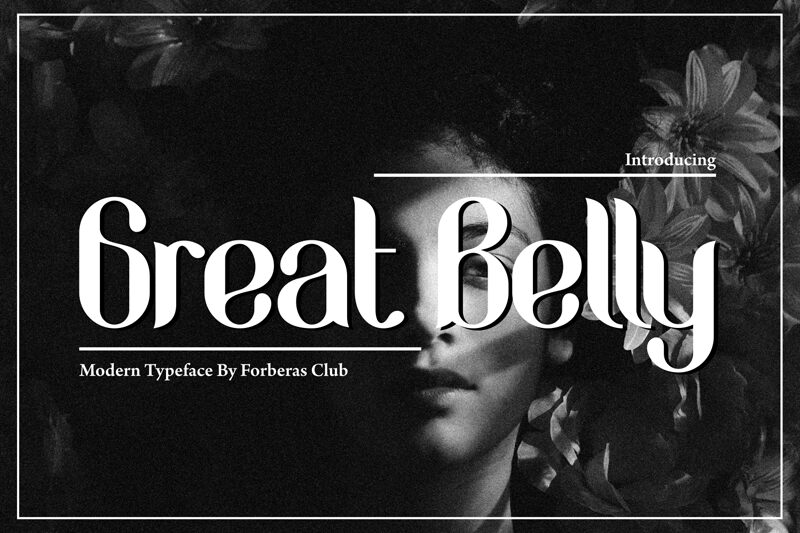
Great Belly, the modern display font designed by Forberas Club, is perfect for projects that require a sleek and sophisticated touch. With its condensed width, this semi-bold font adds a sense of urgency and emphasis to headlines, titles, and logos. This versatile typeface is suitable for various creative projects such as magazine covers, branding materials, website headers, and packaging designs. Its bold strokes and contemporary feel make it an excellent choice for fashion-related industries or edgy startups looking to make a statement. Great Belly's unique style will captivate your audience and elevate your designs to the next level.
Great Belly
For Beras Club